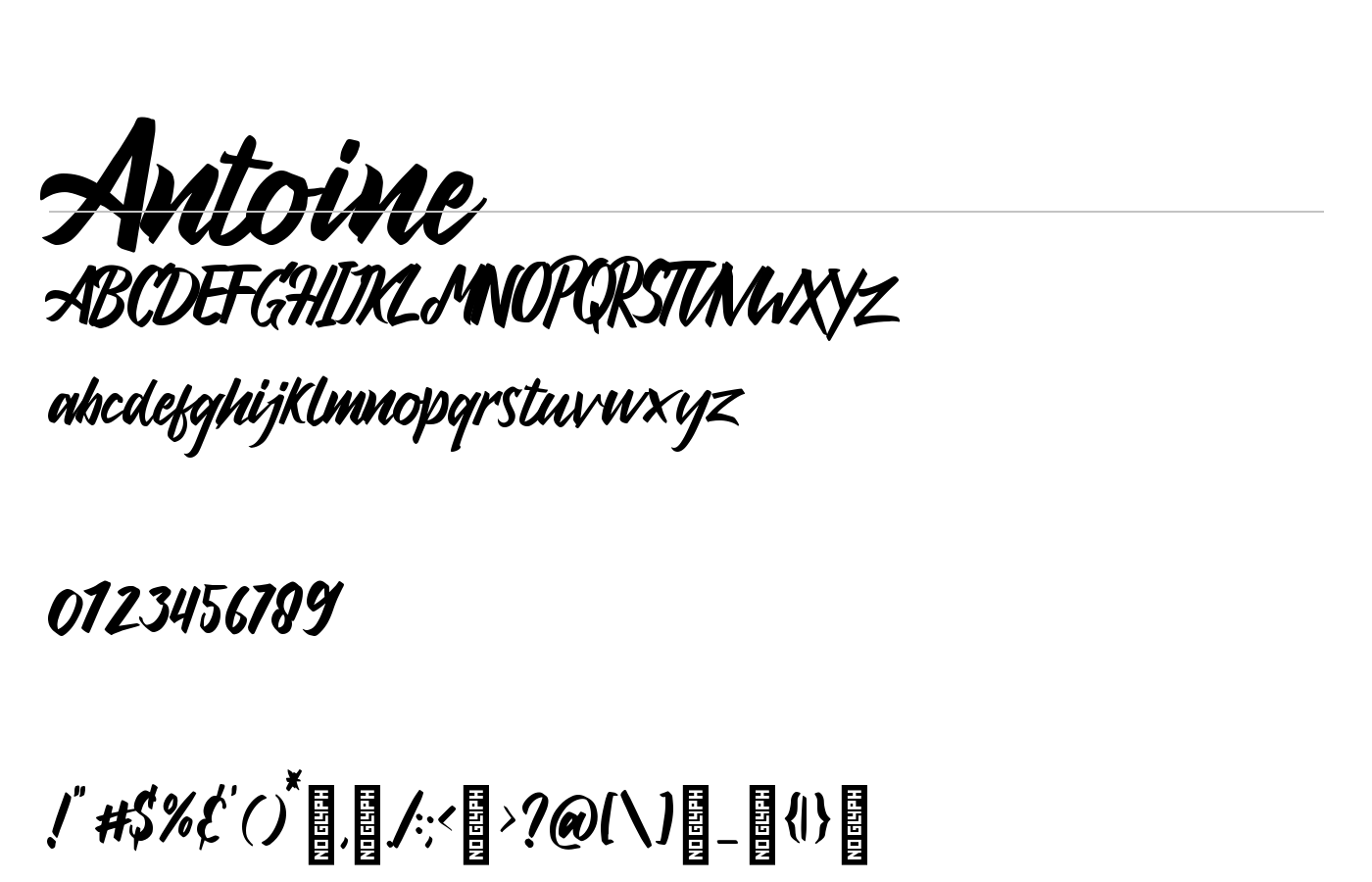
Antoine is a bold, energetic script font with a handwritten style that blends casual charm with dynamic movement. Its slightly condensed letterforms and high contrast strokes give it a modern and playful personality, making it perfect for creative branding, eye-catching headlines, and stylish packaging where a confident yet approachable tone is desired. This font shines in designs that seek to convey personality and flair without sacrificing readability.
Antoine Font
About Antoine Font